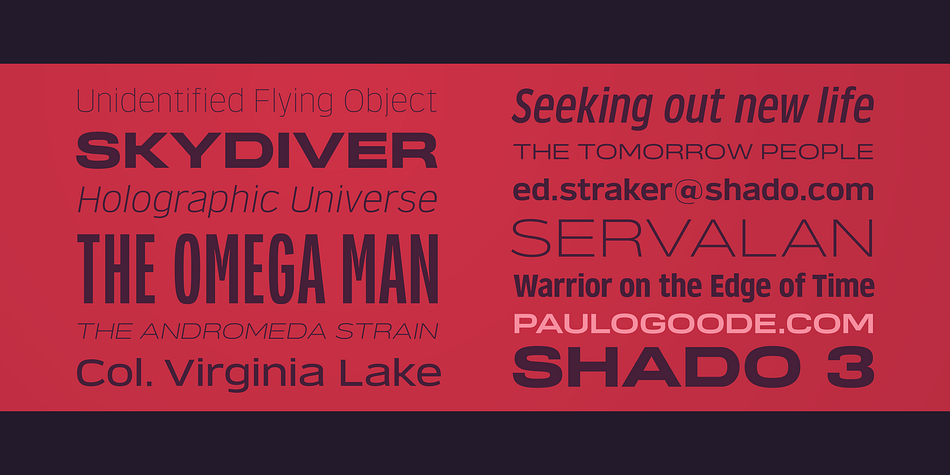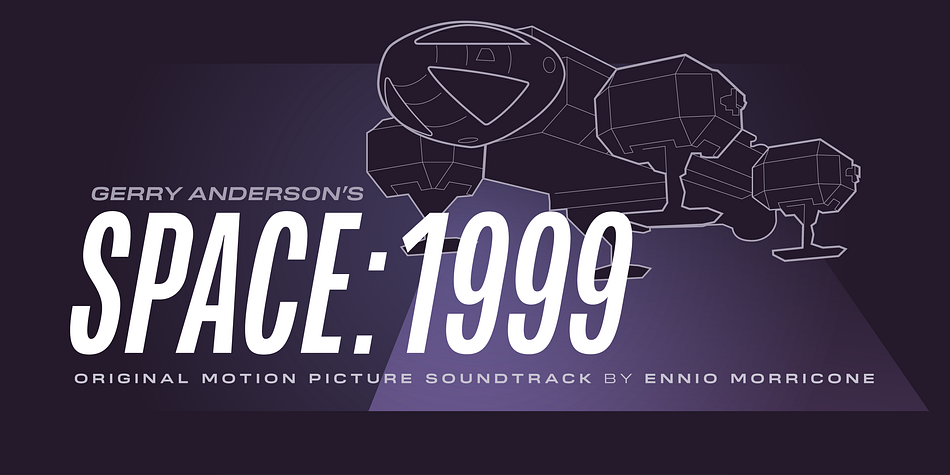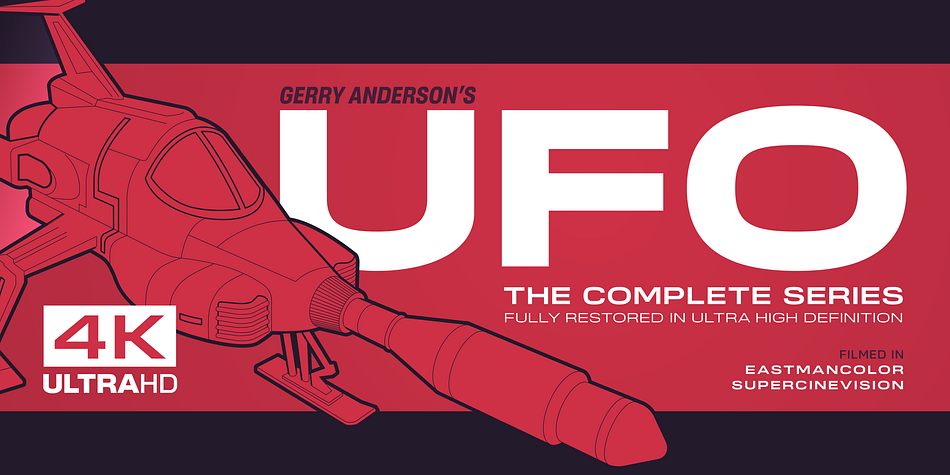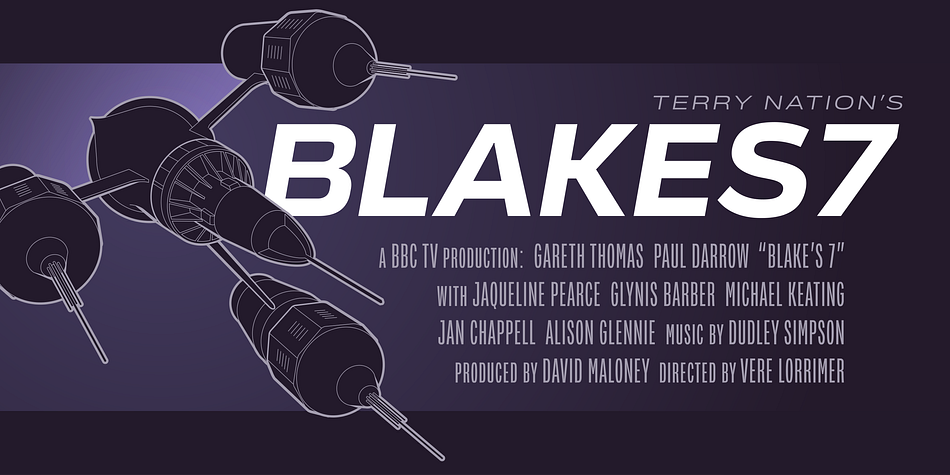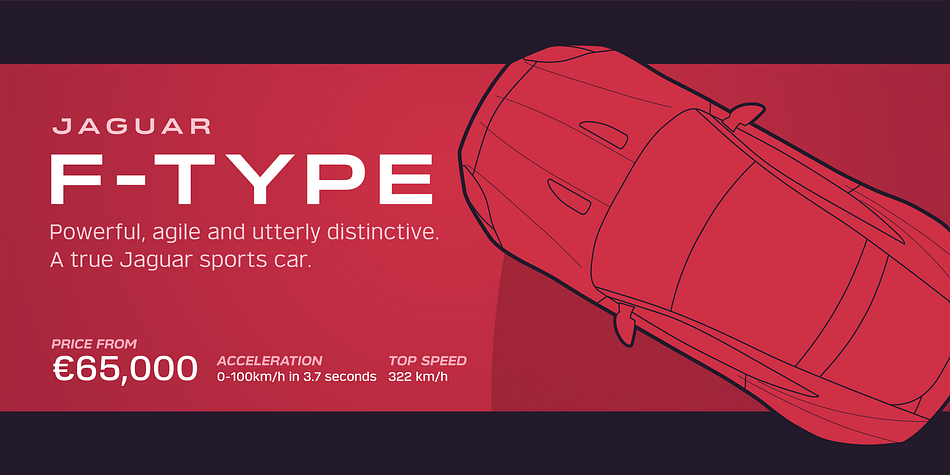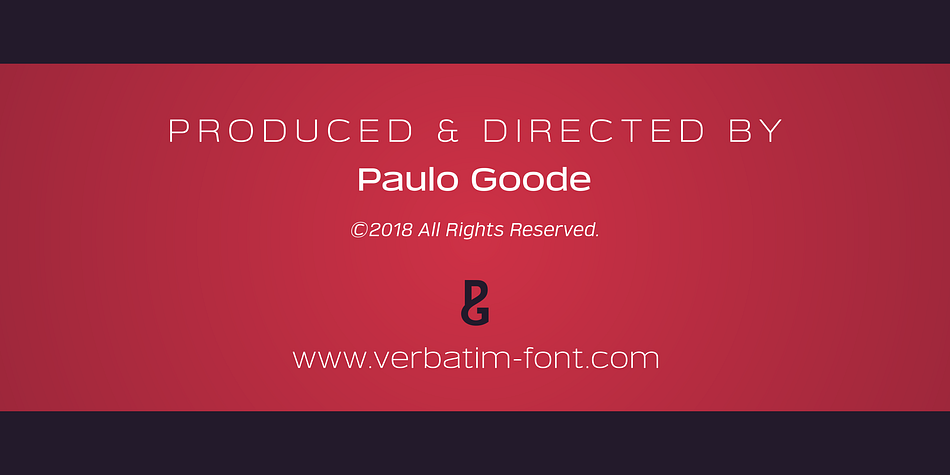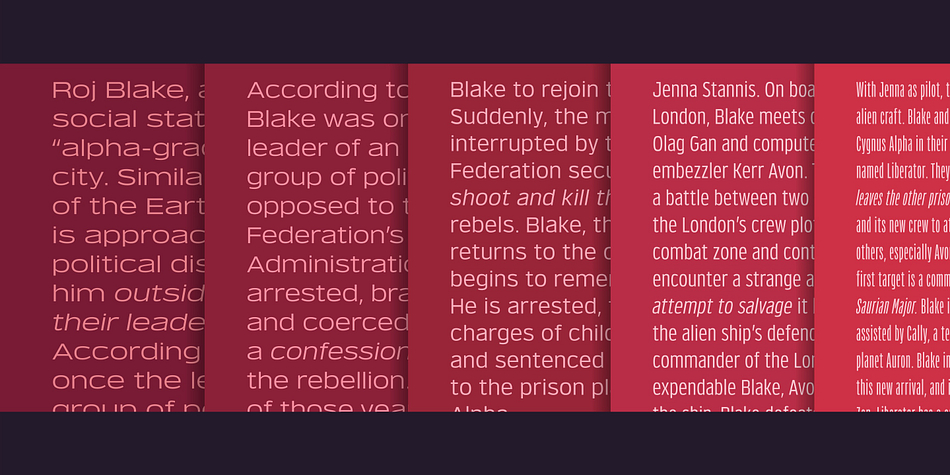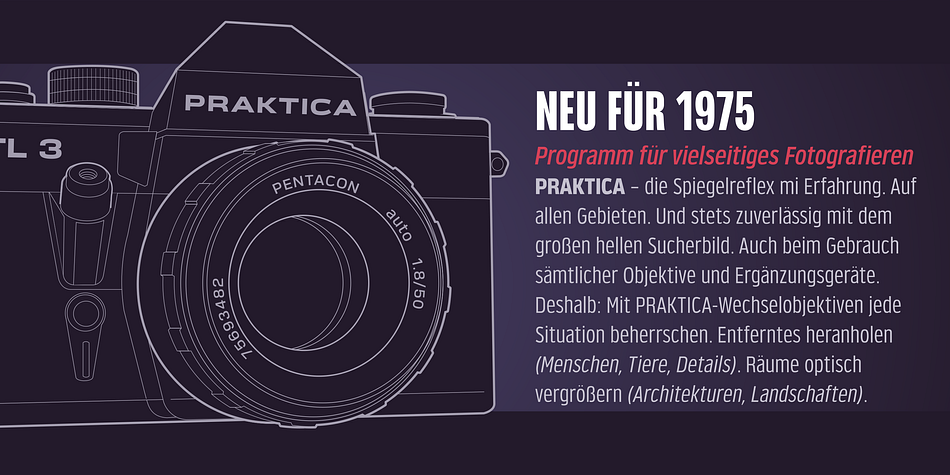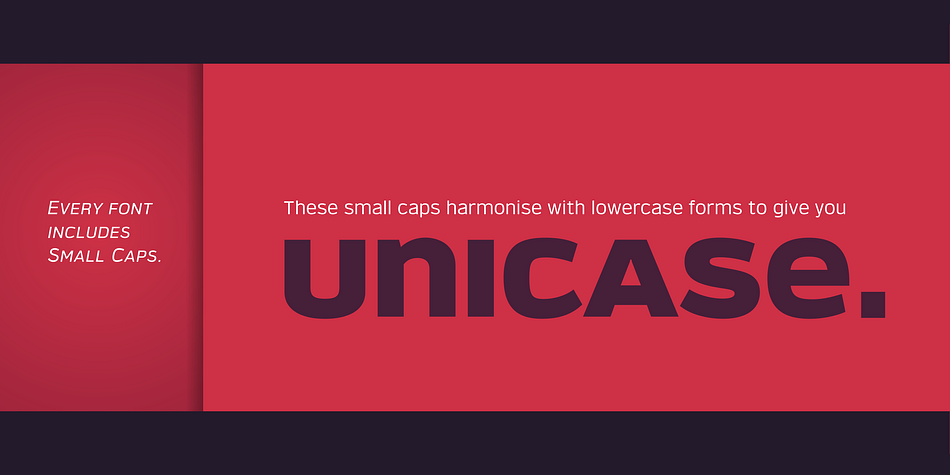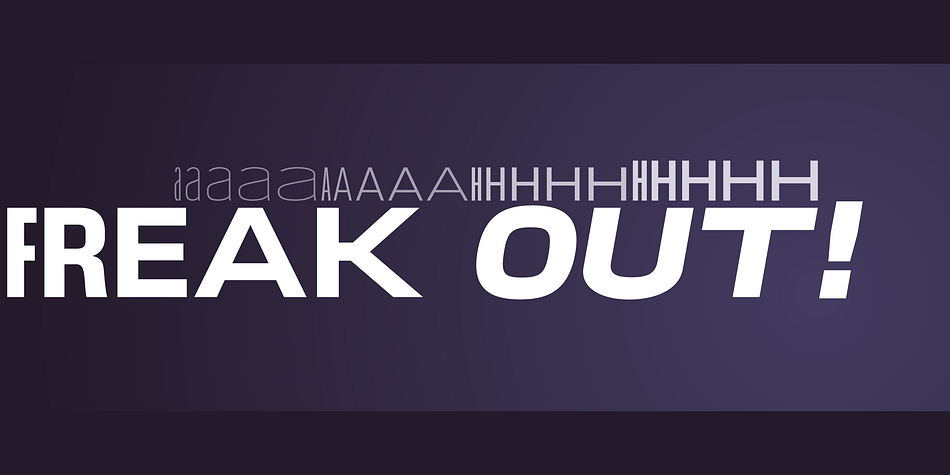
Designed by Paulo Goode, Verbatim is a sans serif font family. This typeface has sixty styles and was published by Paulo Goode.
This extensive 60-font type family was inspired by the best (and worst) of 1970s science fiction TV shows and movies. Verbatim aims to extract the essence of futuristic type from that era, add a dash of modern style and conjure a cinematic typeface for the 21st century.
From the extremes of the thin condensed, all the way through to the black extended, Verbatim has the scope to add drama to your titles and headings, and finesse to your logo and branding projects. Distinguishing features include a large x-height and open counters that aid legibility. This typeface crosses a few boundaries of type specification in that it is both rounded and square, it is part geometric in construction with a touch of humanistic flair and stroke contrast – giving Verbatim a distinctive and confident air.
Key features:
• 6 weights in Roman and Oblique
• 5 Styles – Condensed, Narrow, Regular, Wide, Extended
• Small Caps and 7 Alternates
• European Language Support (Latin only)
• 600 glyphs per font.